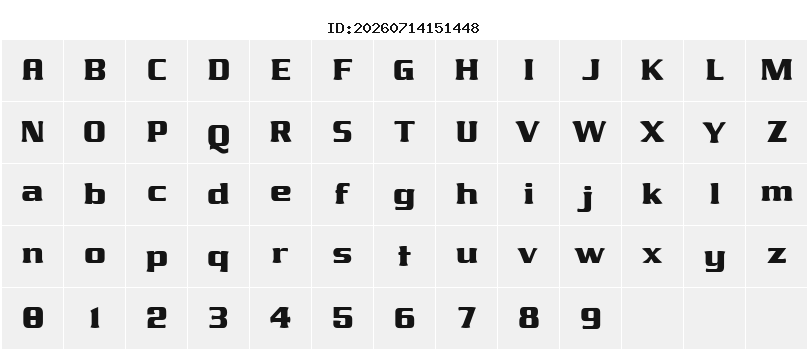
• Font Name: James Eight Eleven
• Full Font Name: James Eight Eleven
• Designer: Graham Meade
About James Eight Eleven.ttf
James Eight Eleven.ttf is a modern, elegant sans-serif font designed for ultimate readability and visual harmony. Perfect for branding, headlines, web design, and print materials.